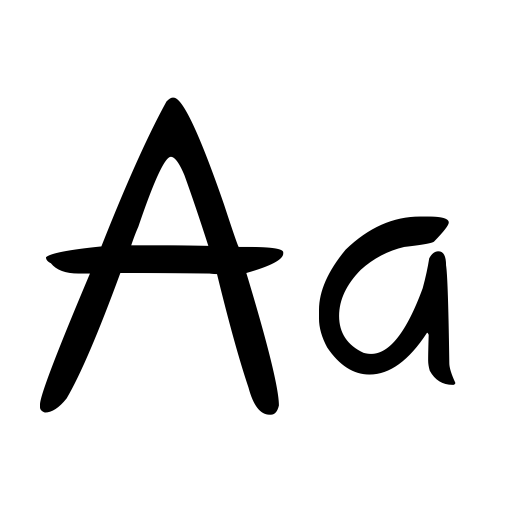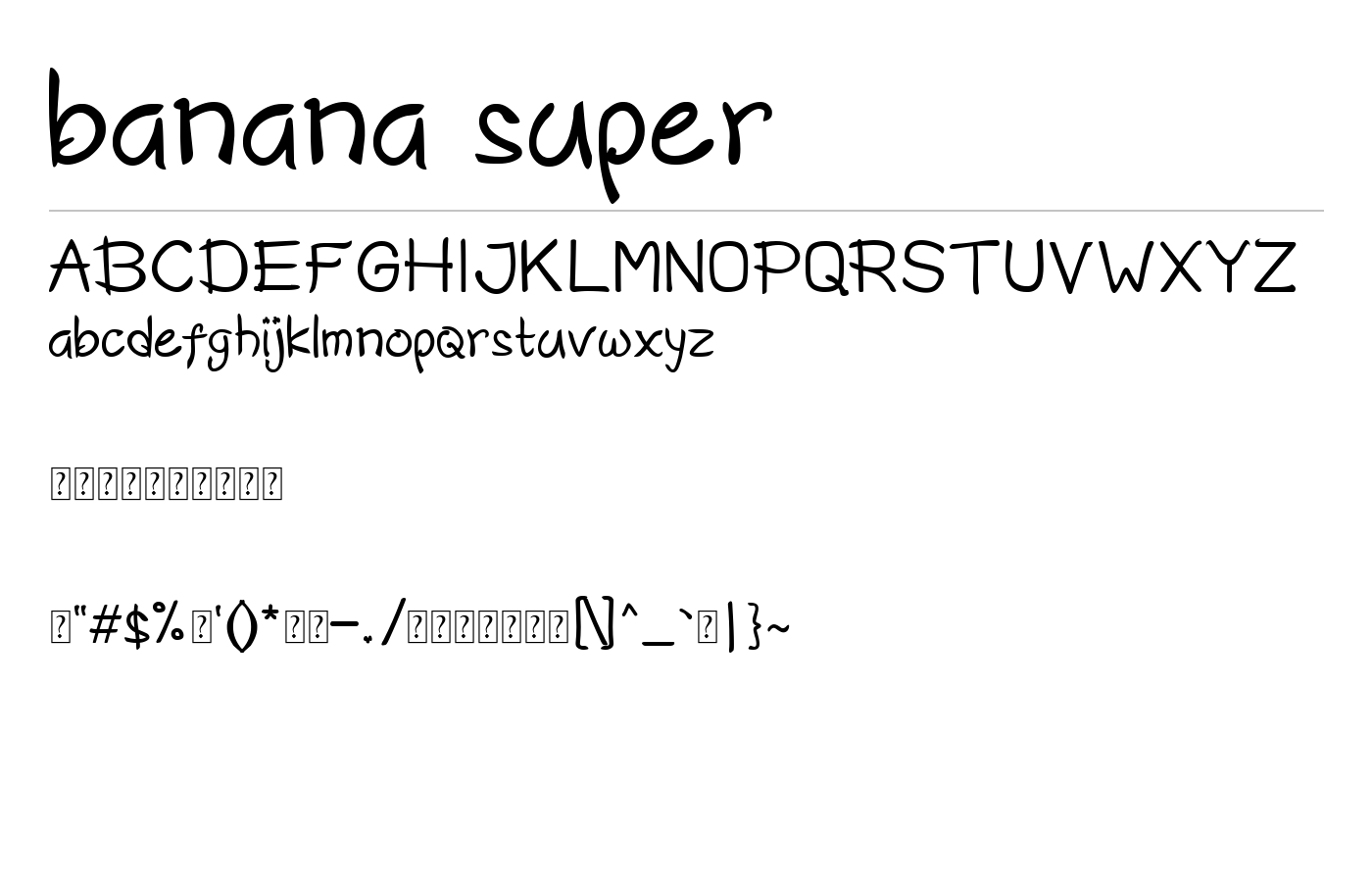
Banana Super is a playful and casual handwritten sans serif font with a light weight and a slightly condensed, airy feel. Its irregular strokes and quirky letterforms give it a friendly, informal personality, making it ideal for creative projects, children's books, and fun branding. This font works well in headlines and display text where a personal, approachable vibe is desired.
banana super Font
About banana super Font
| Font family | banana super Font |
| Designer | kumara pasae |